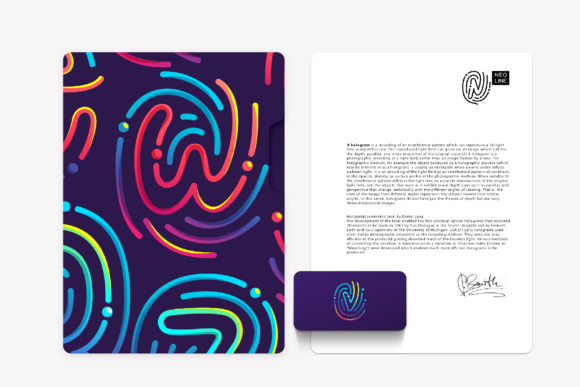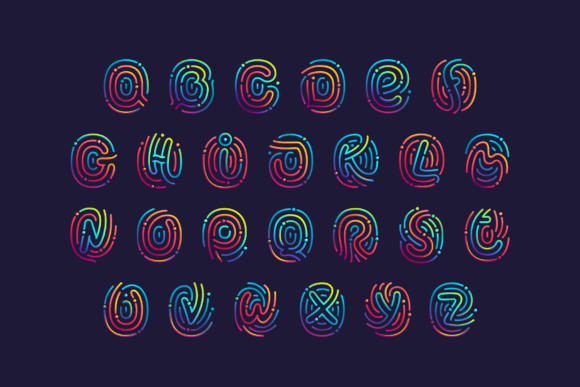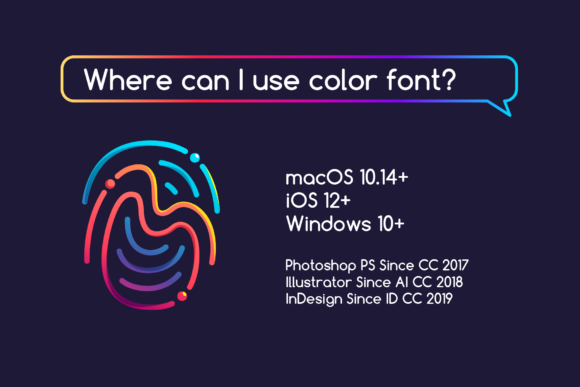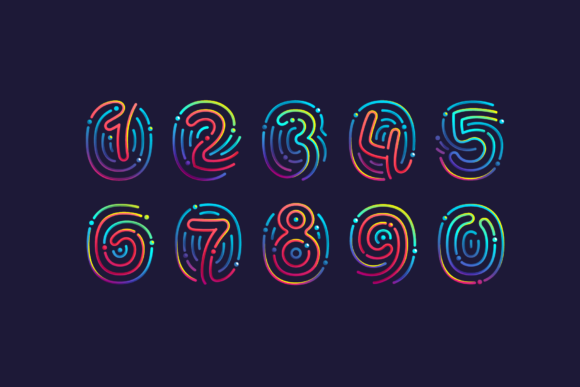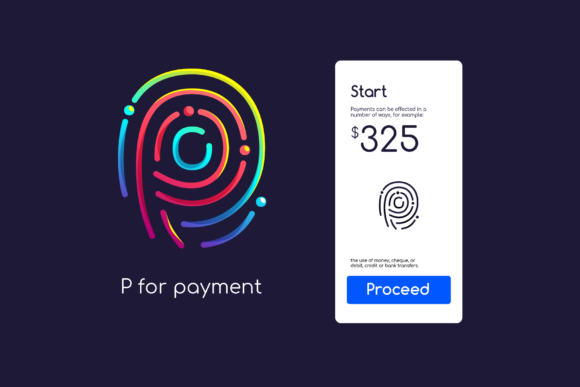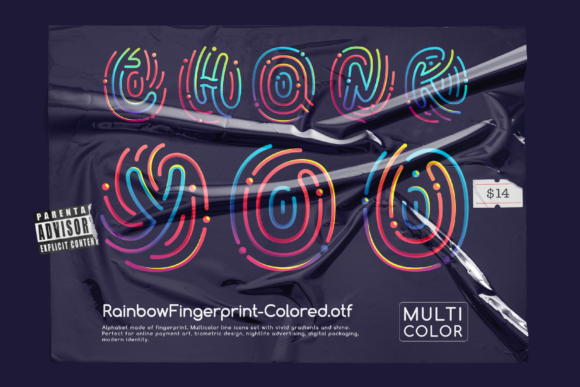
Introduction to Rainbow Fingerprint Font
Have you ever been working on a creative project and suddenly, a burst of color and whimsy is exactly what you need to bring it to life? For designers, those ‘aha’ moments are what make all the hard work worth it. I had one of those moments recently while working on a digital design project, and it all started with a font – the Rainbow Fingerprint Font. This unique and eye-catching font has become my go-to resource for adding a pop of color and personality to my designs.
As a valuable design resource, the Rainbow Fingerprint Font offers endless possibilities for creative expression. Its vibrant colors and playful style make it perfect for a wide range of projects, from social media graphics to print materials. With its transparent background, this font is also incredibly versatile, allowing designers to layer it over any background image or color scheme.
Key Features of Rainbow Fingerprint Font
- Unique, hand-drawn design with a fun and creative touch, perfect for any project that needs a playful vibe.
- Features a transparent background, allowing for easy customization and integration into various design elements.
- High-quality design with a resolution of 300 DPI, suitable for printing and digital use.
- Perfect for use in creative projects such as children’s books, greeting cards, and educational materials.
- Includes a range of glyphs and characters, including uppercase and lowercase letters, numbers, and special characters.
Honest Review: Rainbow Fingerprint Font
I recently came across the Rainbow Fingerprint Font, and I must say it’s quite the unique design resource. This free download has a lot to offer for creative projects.
- What works well: ✨ The font’s playful and whimsical nature makes it perfect for kids’ projects, party invitations, or even social media graphics.
- What works well: ✨ The transparent background allows for seamless integration with any design element, giving you complete control over your creative project.
- ⚠️ The font may not be suitable for formal or professional designs due to its playful nature.
- ⚠️ Some users may find the font’s bold and colorful style overwhelming or difficult to read in certain contexts.
Overall, I think the Rainbow Fingerprint Font is a great addition to any designer’s toolkit. It’s a high-quality resource that can add a fun touch to your creative projects. Just be mindful of its limitations and use it wisely.
The Rainbow Fingerprint Font is a unique and vibrant design resource perfect for creative projects. With a transparent background, it can be easily integrated into various design software.
- Use it in combination with bold colors and high-contrast backgrounds.
- Experiment with different font sizes and styles to achieve a unique look.
- Pair the font with other design elements, such as icons and graphics, to create a cohesive design.
The Rainbow Fingerprint Font is ideal for various creative projects, including:
- Party invitations and decorations.
- Social media graphics and posts.
- Wedding and event planning materials.
- Children’s book illustrations and design.